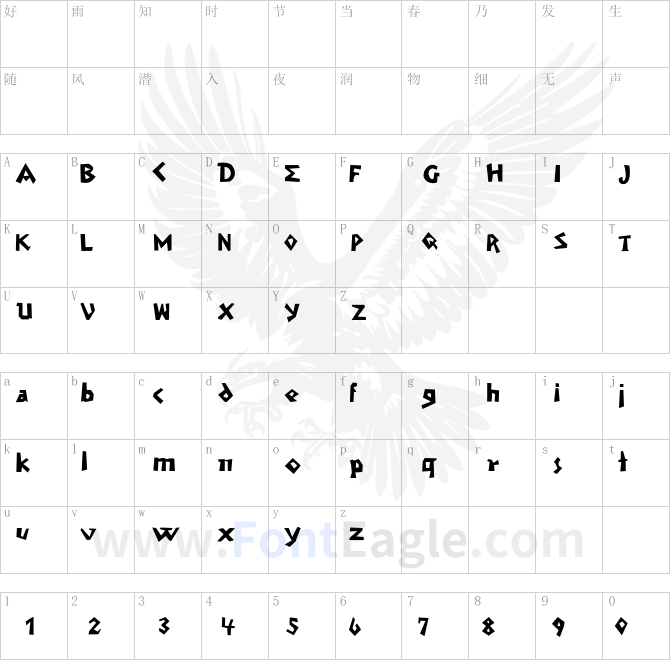
- Font name:MendelsohnsTochter
- Font Subfamily ID:MendelsohnsTochter
- Font Full Name:MendelsohnsTochter
- Font Version:1.0 2006-05-09
- Postscript:MendelsohnsTochter
- Font Copyright:(c) M. Klein, may-9-2006. Based on Mendelsohn-Type, Butter 1921